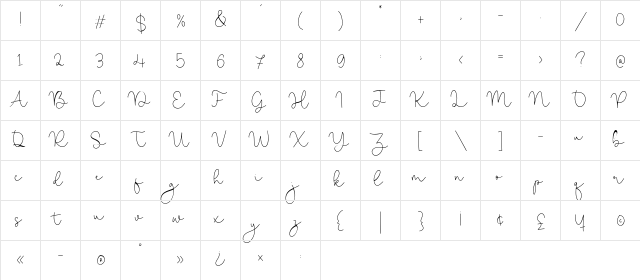
Miracle Sunrise Regular
Design Context for Miracle Sunrise Typeface
Miracle Sunrise is a composed and adaptable typeface that performs quietly and consistently across a wide range of design contexts.